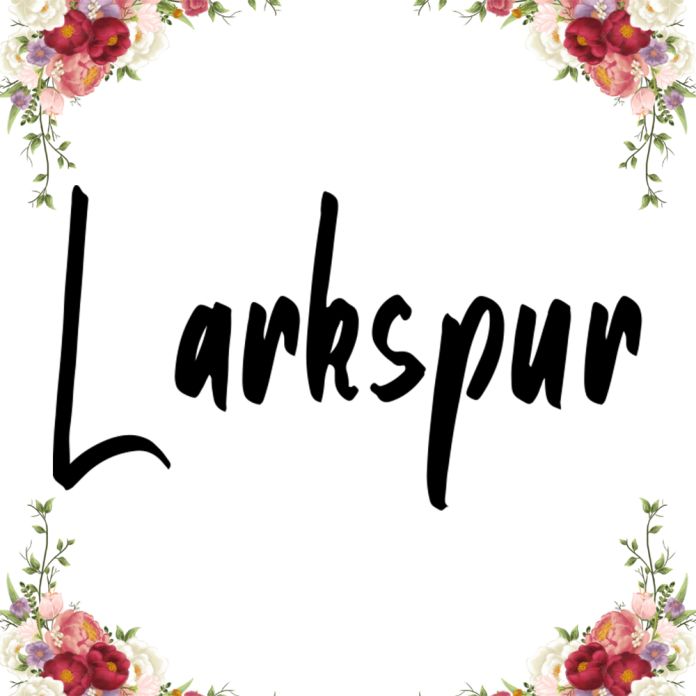
Larkspur is a fine and smart script font that emanates sophistication and elegance. Fall in love with its incredibly versatile style, and use it to create spectacular designs! This font is PUA encoded, which means you can access all of the glyphs and swashes with ease!